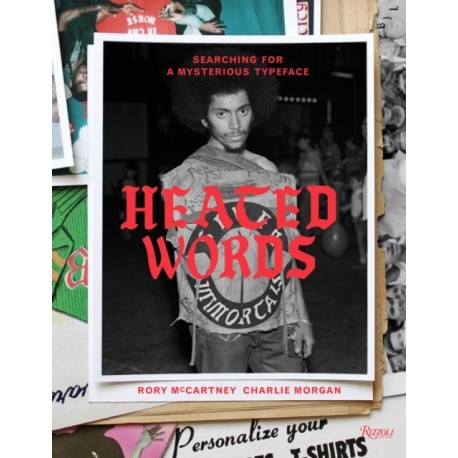
Unique in the histories of typography and street fashion, the lettering that is the subject of this brilliant survey remains without attribution a typeface created anonymously and passed down over decades and across subcultures, establishing itself as the de facto font of rebellion.